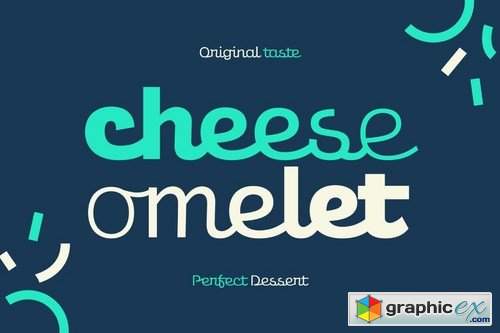
Amio
Amio is fun geometrical connected script font family. Consist of 6 styles from light to extrabold. Perfect for branding and suitable for a variety of fun projects.